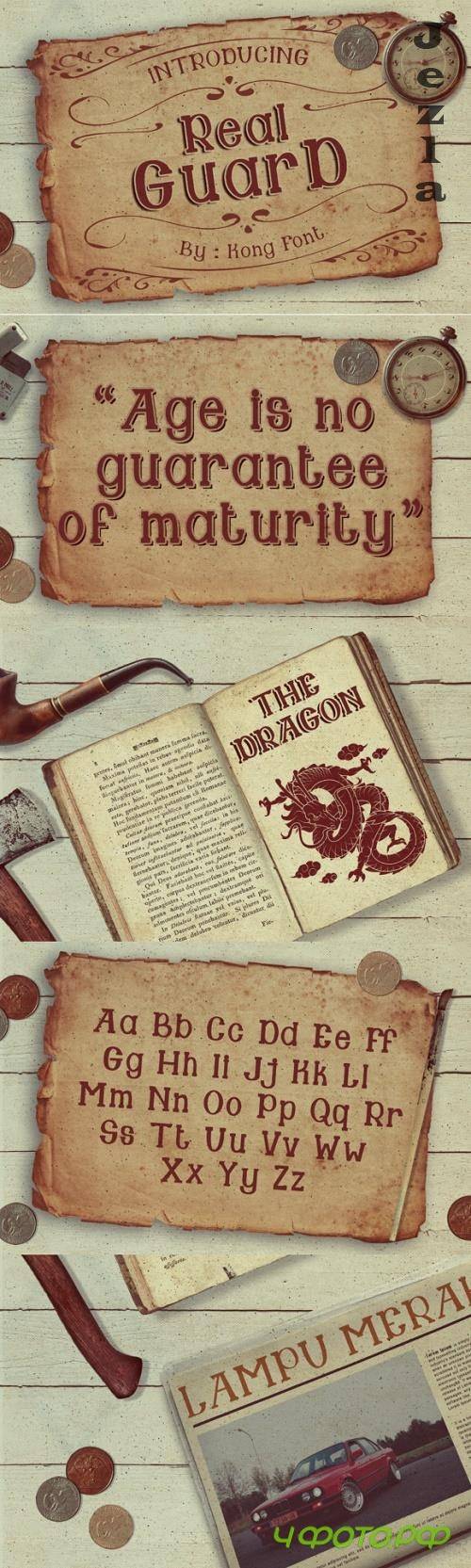
Guard Font
Guard feels equally charming and elegant. Whether you’re looking for fonts for Instagram or calligraphy scripts for DIY projects, this serif font will turn any creative idea into a true piece of art!